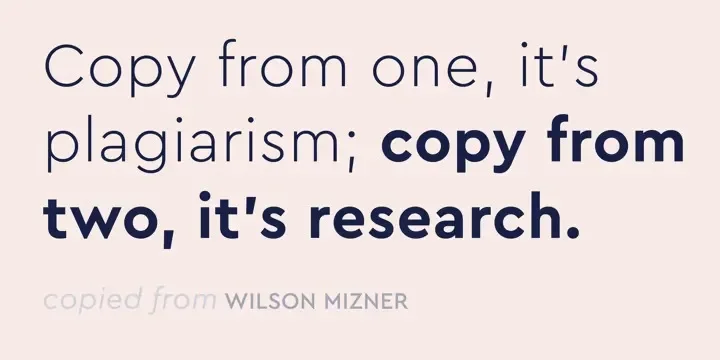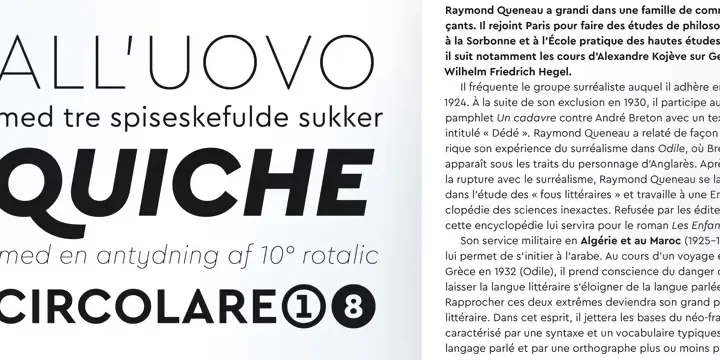
Cera Pro Font is one of those rare typefaces that feels sharp and friendly at the same time. Designed by Jakob Runge from TypeMates, it takes its cues from classic Swiss fonts of the 1950s, think clean lines and simple forms, but adds its own warmth and style. The italics? Slanted just enough to catch the eye, with perfectly round o’s that keep things playful. Whether you’re laying out a sleek app or building a brand identity, Cera Pro gives you that modern, versatile look without feeling cold or robotic.
- Designer: Jakob Runge (TypeMates)
- Released: 2015
- Style: Geometric sans serif with subtle Art Deco influence
- Six weights from Thin to Black, plus matching italics
- Compact proportions with a large x-height for readability
- Over 980 glyphs per style support Latin, Cyrillic, and Greek
- Built-in symbols, arrows, and handy OpenType features
- Carefully hinted for clean rendering on screens and in print
Cera Pro is a great pick for clean, modern projects, logos, packaging, UI, and even long-form editorial. It plays well in both big headlines and small text. Try pairing it with a serif like Lora for a nice balance, or mix it with a soft sans like Source Sans Pro when you want contrast without tension.